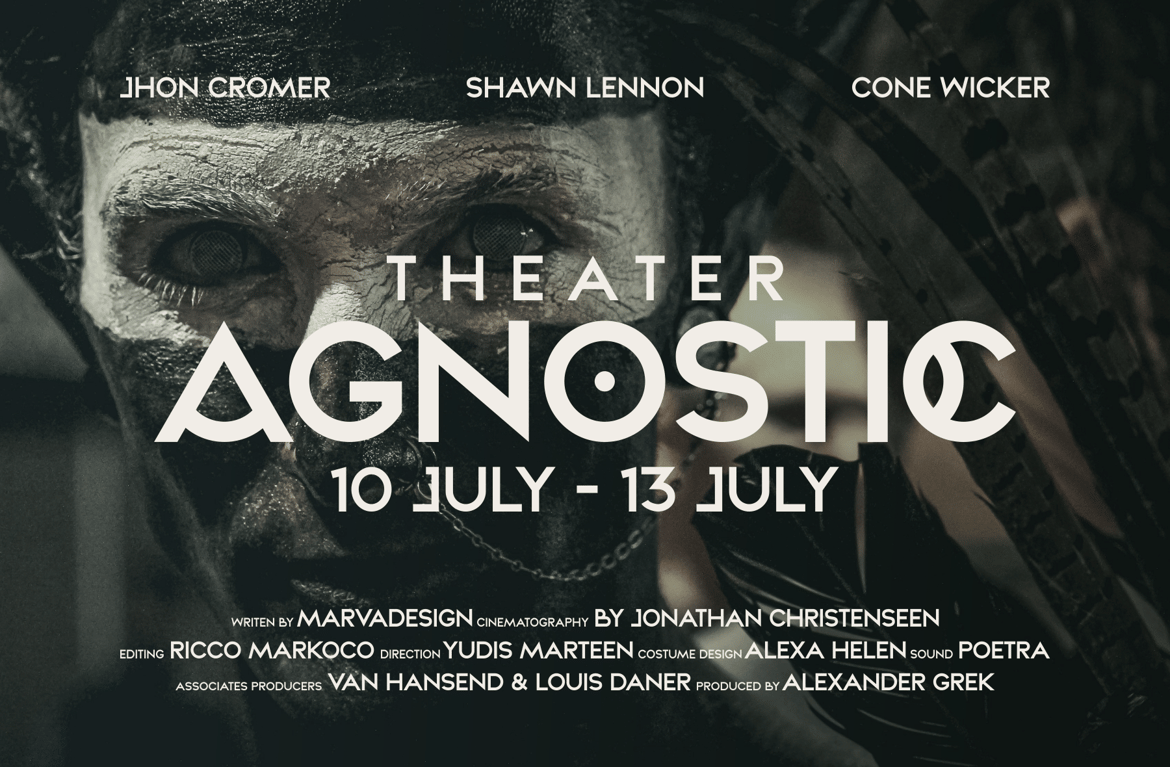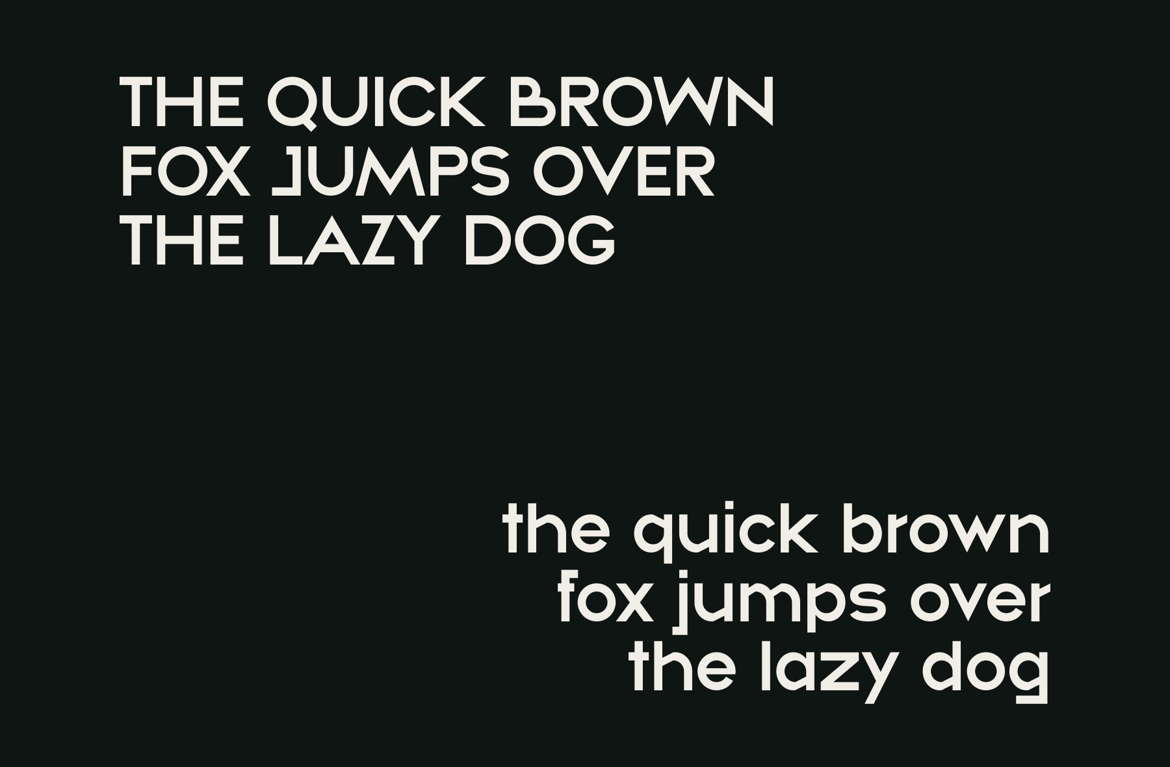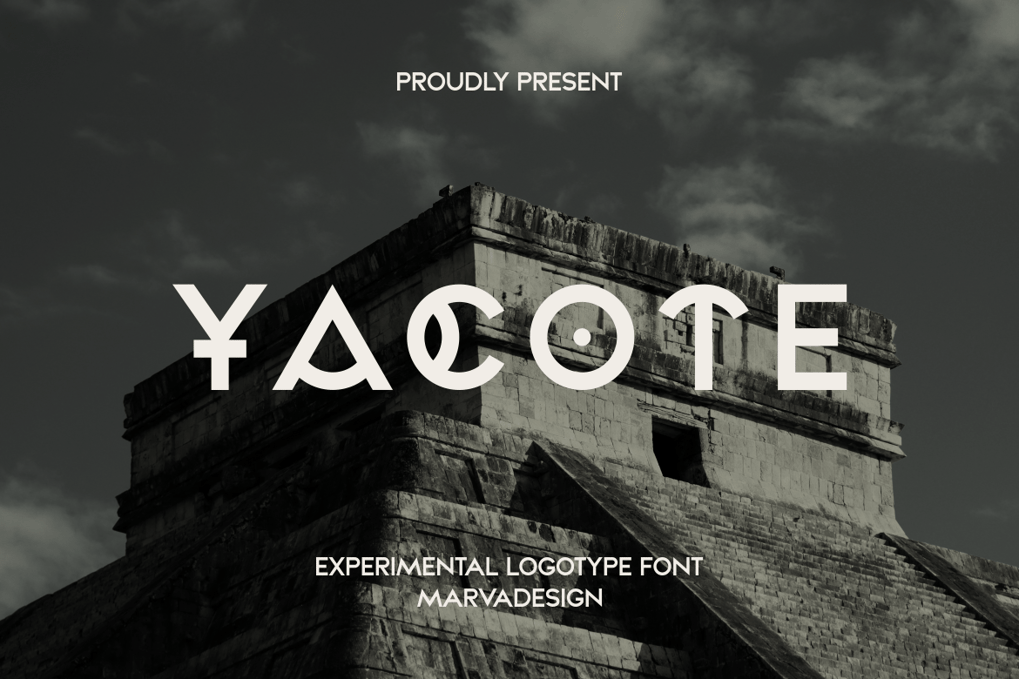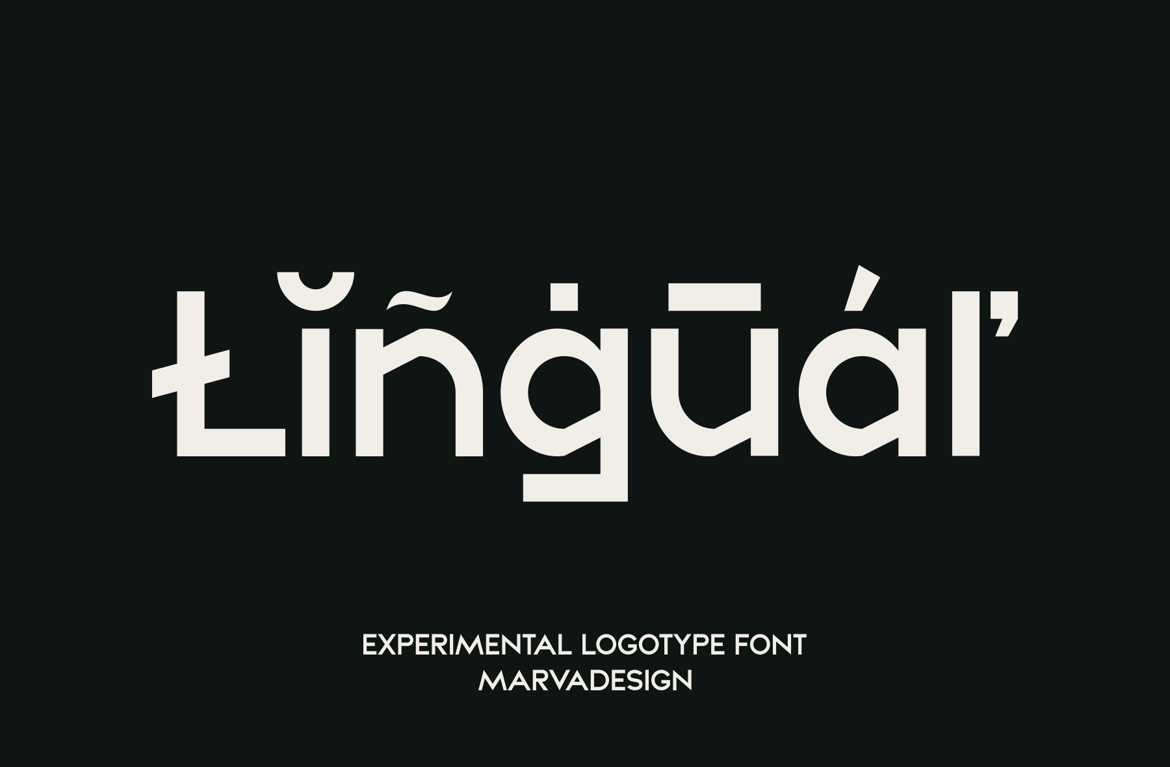
Yacote – Display Sans Font
Usage and Application
* Branding and Identity: Ideal for creating logos, brand names, and corporate identities that require a touch of sophistication and cultural richness.
* Editorial Design: Suitable for use in magazines, book covers, and other editorial projects where an elegant yet distinctive typeface is needed.
* Packaging: Perfect for product packaging that aims to convey luxury, heritage, or a unique cultural story.
* Advertising: Effective in advertisements and marketing materials that need to capture attention and make a strong visual impact.